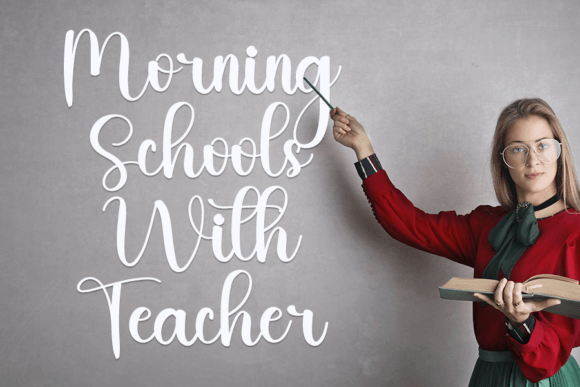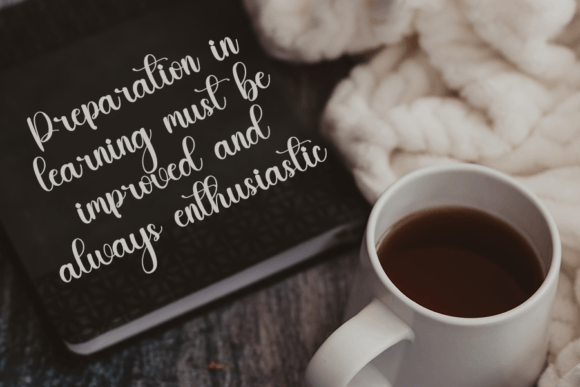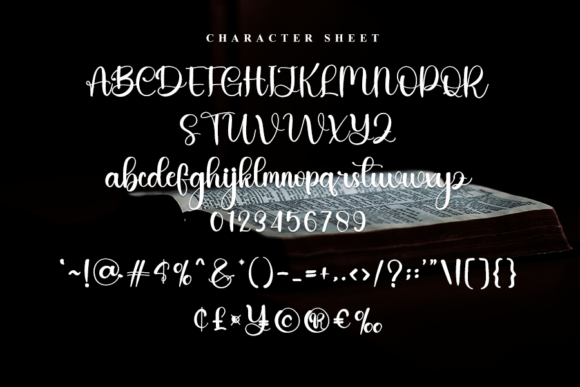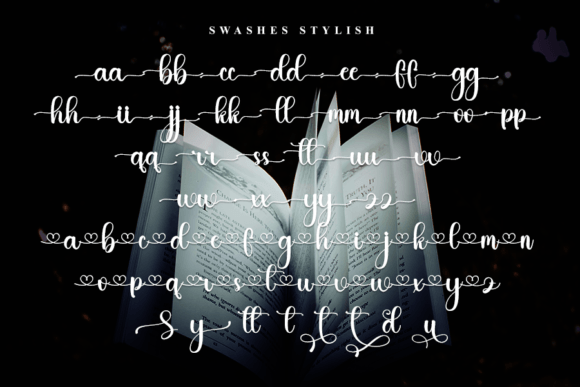
About Study Font
“Study” is a trendy handwritten font that encapsulates a contemporary atmosphere while maintaining impeccable form, drawing inspiration from timeless classic calligraphy. This font effortlessly infuses elegance and class into any design project you undertake.
The font’s contemporary handwritten style with a touch of classic calligraphy adds a sense of modern sophistication to your work. Whether you’re working on branding materials, invitations, stationery, or any other design project, “Study” enhances your creations with its timeless and stylish typography.
“Study” is a versatile font that adapts seamlessly to various design contexts and themes, making it an invaluable asset for designers and creators who seek to bring a touch of refinement and sophistication to their work.
In summary, “Study” is more than just a font; it’s a creative asset that imbues a sense of elegance and class into your design endeavors. Its contemporary calligraphic style, combined with its versatility, makes it a valuable addition to your font collection. Embrace “Study” and observe how it elevates your creative projects with its sophisticated and stylish typography.